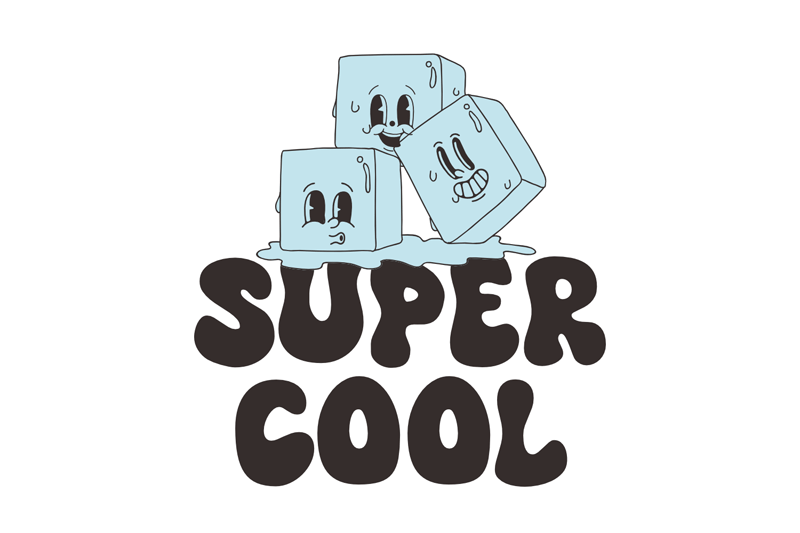
Preview and download Super Cool Font. Created by fsuarez913 in Fancy Groovy styles with Free for personal use license.
This font is for PERSONAL USE ONLY!. If you want to use this font for commercial purposes, you will need to purchase a commercial license. You can purchase a commercial license at https://singlelinestd.com/product/super-cool/ Super Cool is a quirky, groovy, fun, and cool display font. The font features thick, rounded letters with a playful twist. The letters are slightly uneven, giving the font a unique and handcrafted look. For questions, please visit https://singlelinestd.com/contact/ |